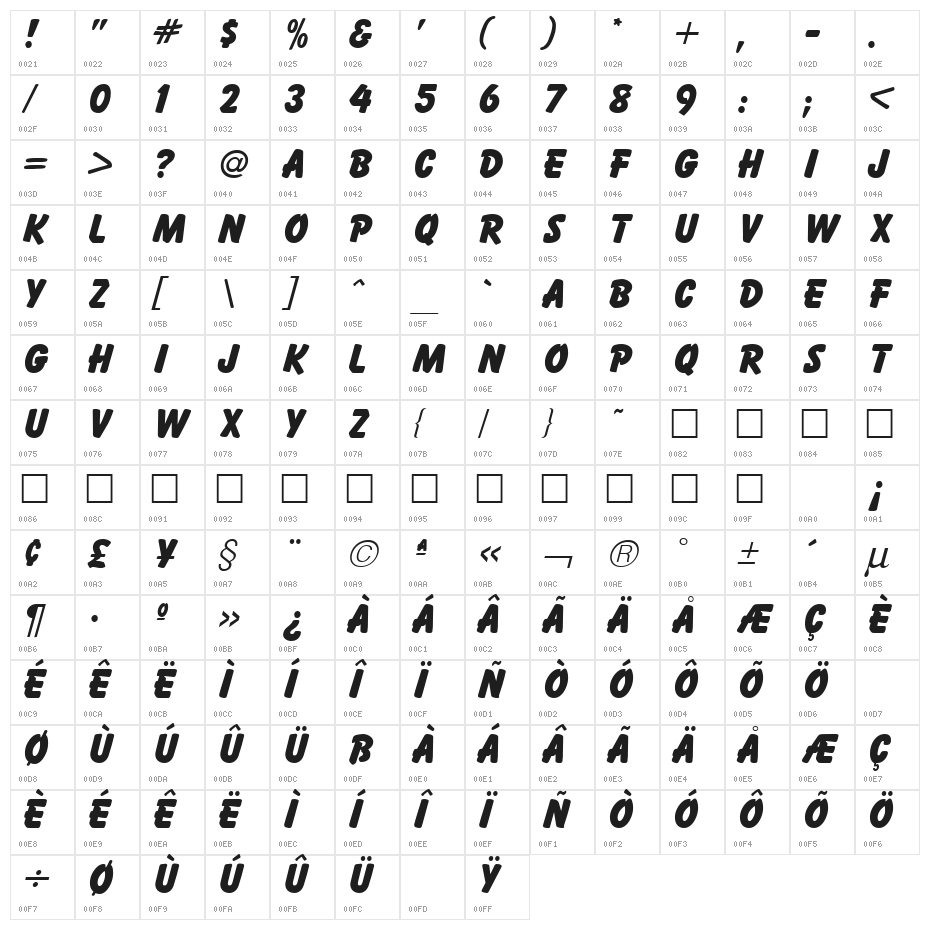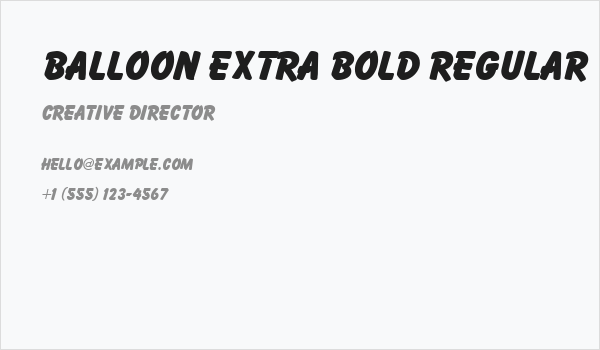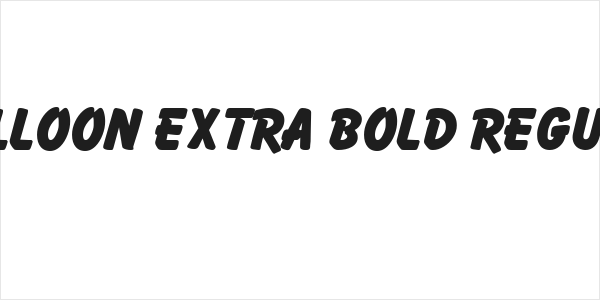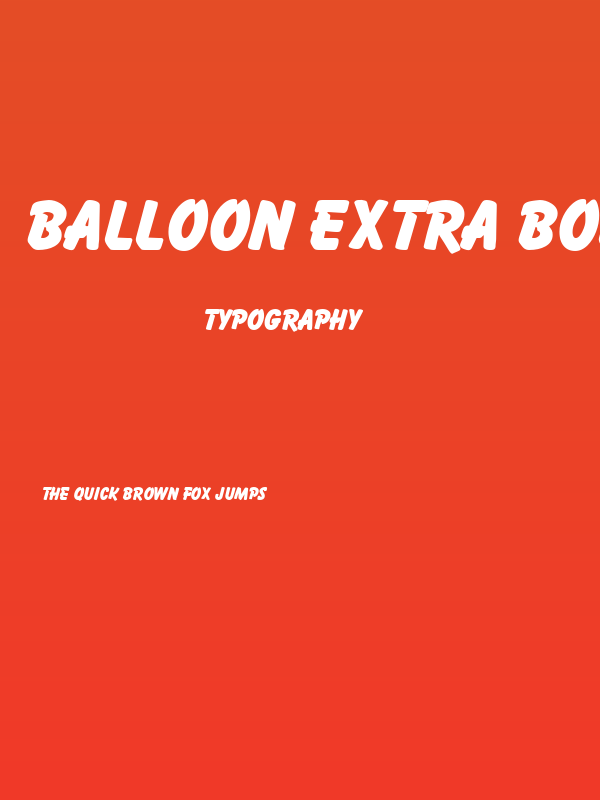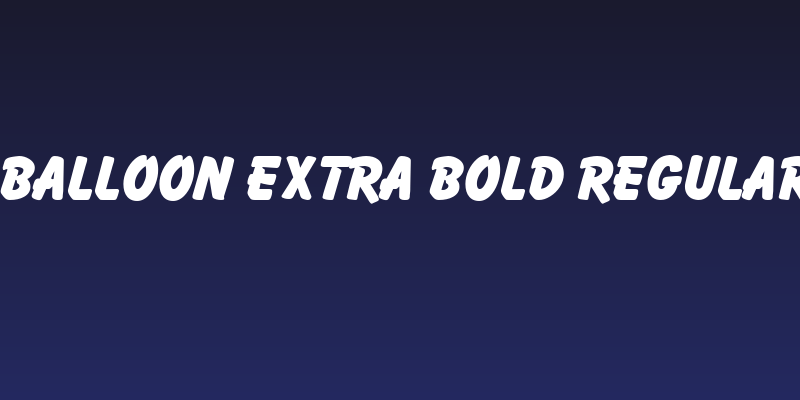
Balloon Extra Bold Regular Font
Balloon Extra Bold Regular Description
This font features a bold and playful style with rounded edges and a slightly italicized slant, giving it a dynamic and energetic appearance. The characters are thick and robust, making them highly legible and impactful. The font's design is reminiscent of balloon lettering, with a whimsical and fun aesthetic that is perfect for capturing attention. Its bold weight and rounded forms make it suitable for a variety of creative applications, where a lively and engaging look is desired.
| Overall Style | Playful, Energetic, Fun |
| Proposed Projects | Ideal for children's book covers, party invitations, playful branding, and eye-catching headlines. |